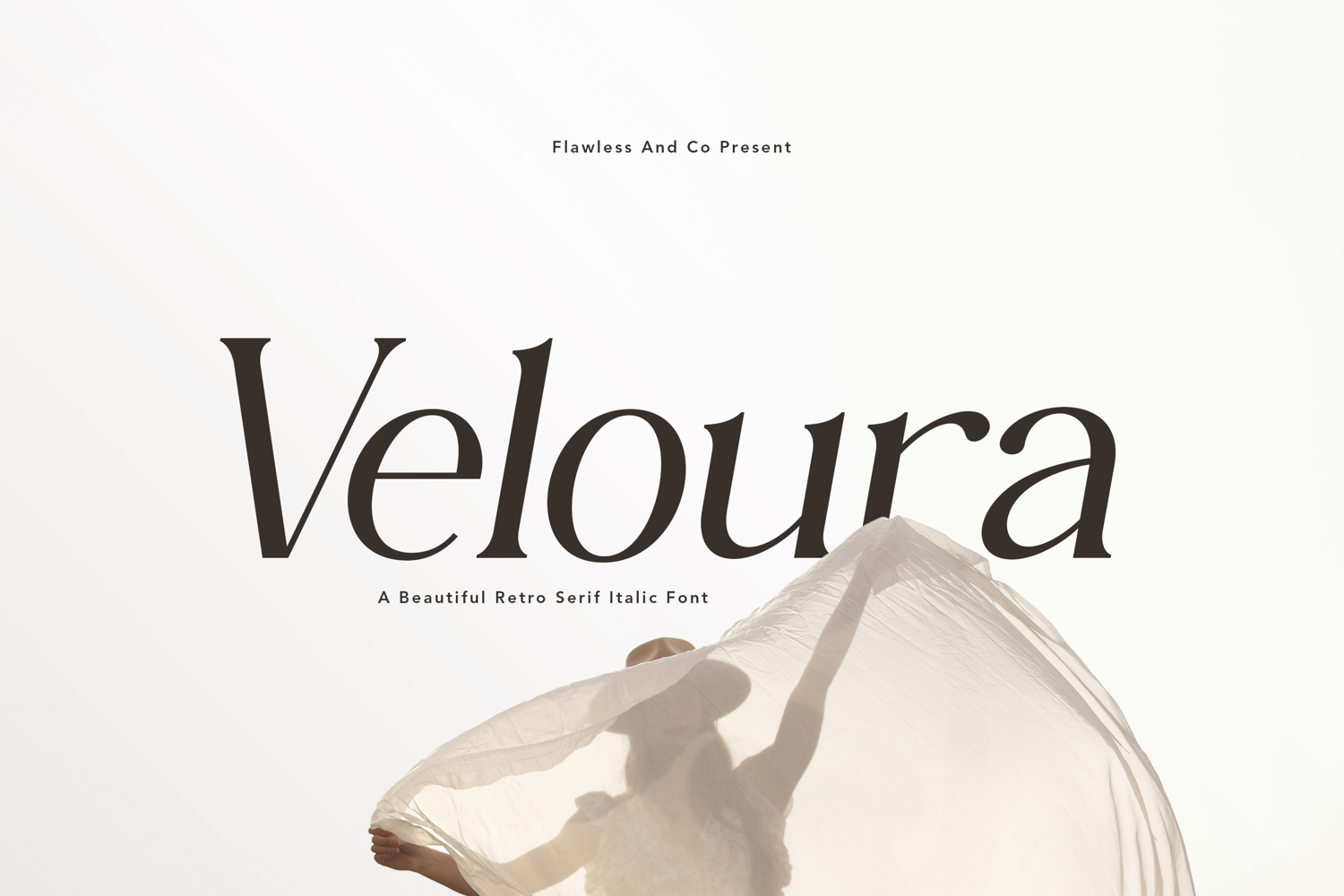
Veloura
VELOURA
Veloura - Retro Serif Font
Veloura is a beautiful retro serif italic font designed to bring timeless elegance and artistic flair to your projects. With its graceful curves, refined details, and nostalgic retro touch, Veloura perfectly balances sophistication with creativity. Ideal for both modern and classic designs, this typeface elevates your work with charm and character. Whether used in bold headlines or subtle body text, Veloura captures attention and creates a lasting impression.
Who Should Use Veloura?
Veloura is made for designers, creatives, and brands who want to combine retro charm with modern elegance.
This font is perfect for:
• Branding professionals seeking stylish, timeless typography
• Editorial designers creating expressive magazine layouts
• Beauty & fashion brands aiming for sophistication and uniqueness
• Packaging designers who want their products to stand out with elegance
• Creative agencies building high-end visual identities
A Must-Have Font for "Brand and Logo" Creators and Designers
Veloura is the perfect choice for professionals who want to craft logos and brand identities with a touch of retro sophistication. Its elegant serif style and graceful italic details make it a versatile tool for building strong, memorable, and timeless designs.
Why Choose Veloura for Brand and Logo Projects?
Veloura combines retro charm with modern elegance, making it an ideal font for standout branding. Its unique serif forms and refined italic strokes provide a balance of style and professionalism, ensuring your logos and brand visuals leave a lasting impression. Whether for luxury, lifestyle, or creative industries, Veloura elevates your projects with timeless sophistication.
Suitable For:
• Brand identities and professional logo design
• Luxury fashion, beauty, and lifestyle projects
• Editorial layouts, magazines, and book covers
• Elegant packaging and product branding
• Wedding invitations and sophisticated stationery
• Social media graphics with a refined touch